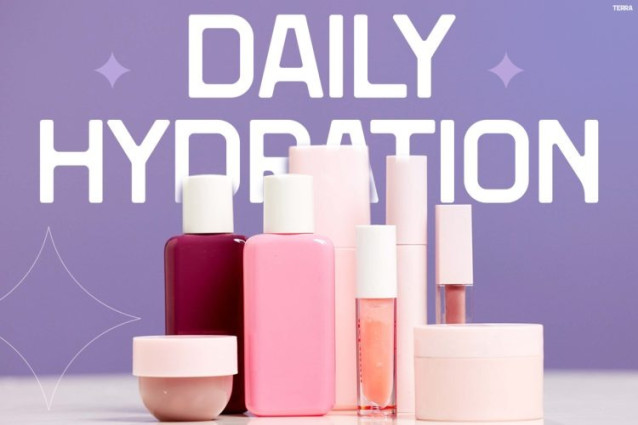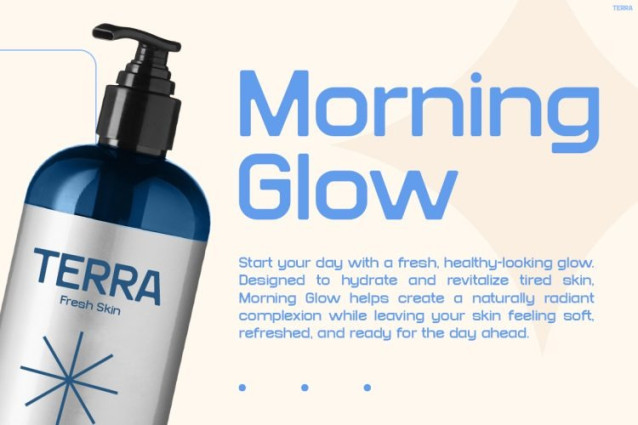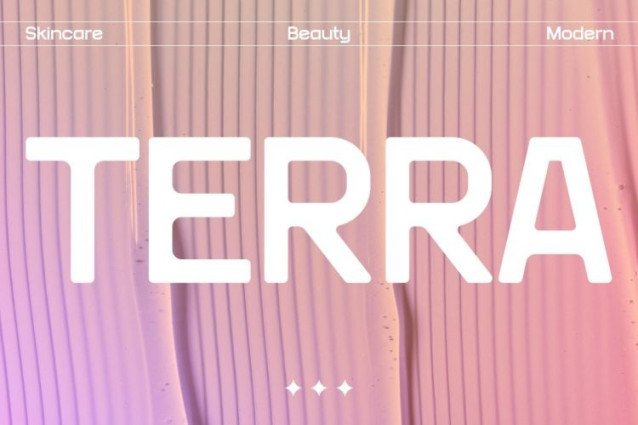
Terra Font
Terra Font is a sleek and contemporary display font designed for modern brands that value clarity, style, and visual impact. Moreover, its clean geometric structure creates a polished and professional appearance. At the same time, its smooth curves add a friendly and approachable feel. As a result, every headline looks refined, eye-catching, and memorable. Furthermore, the minimalist aesthetic aligns perfectly with current social media trends. Whether you’re creating Instagram posts, skincare campaigns, or lifestyle branding, Instagram Font Terra helps your message stand out with confidence. In addition, its balanced letterforms ensure excellent readability across a wide range of creative projects.
nstagram Font Terra combines simplicity with sophistication. Not only does it deliver a clean visual identity, but it also strengthens brand recognition. Furthermore, its versatile design adapts effortlessly to both digital and print media. Consequently, designers can maintain a consistent and professional look across multiple platforms. Meanwhile, its modern character keeps every design feeling fresh, stylish, and relevant. Therefore, it becomes an essential tool for brands seeking a premium visual presence.